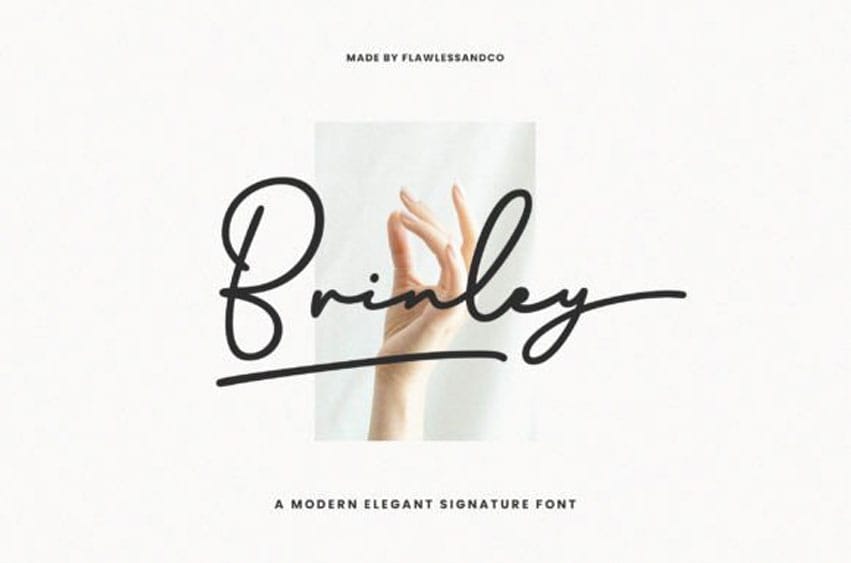
Brinley Font is an elegant and captivating modern handwritten script font. It features smooth and flowing lines, exuding a natural and personal touch. Brinley is well-suited for a variety of designs, including branding, wedding invitations, packaging designs, and posters.